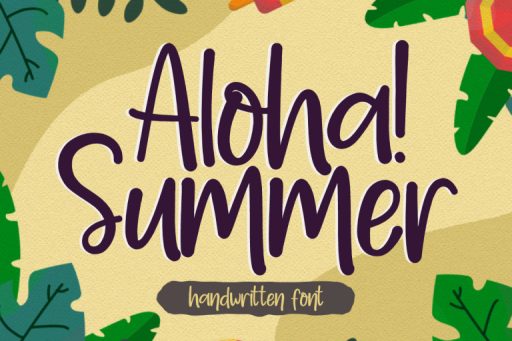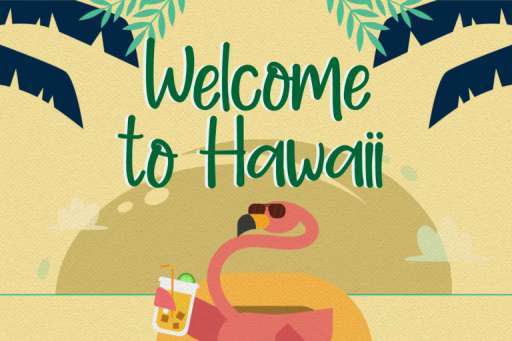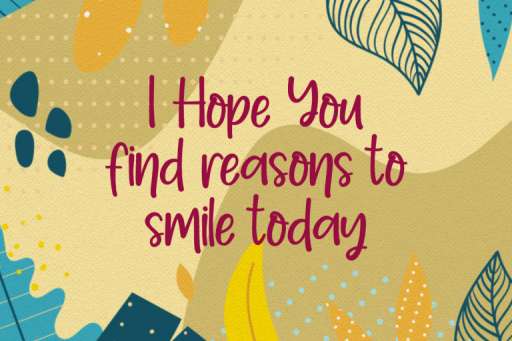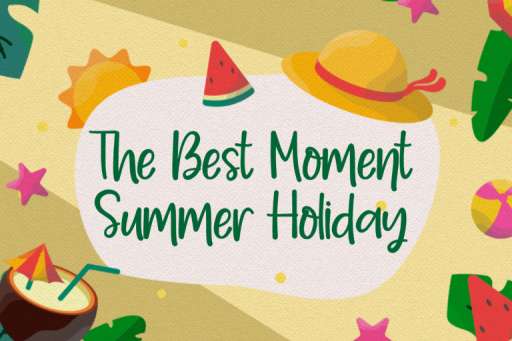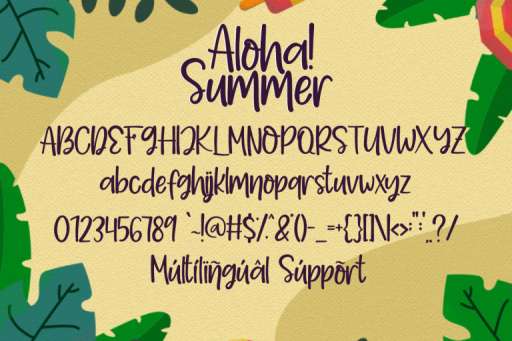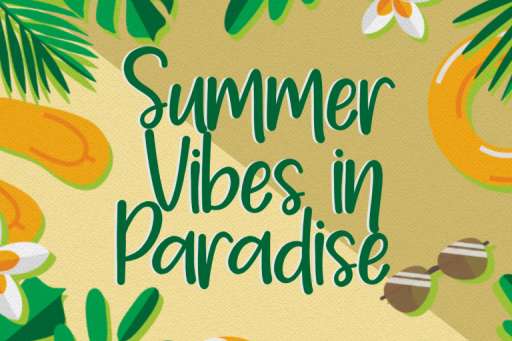
Aloha Summer Font - Handwriting Font From Jimtype Studio
Aloha Summer Font
Aloha Summer – Handwritten Font
Aloha Summer is a handwritten font and Very suitable for those of you who like handcrafted. Very suitable for design purposes that prioritize the natural side of handwriting like, quote, craft projects, party invitations, book cover, signs, etc.!
Aloha Summer Features :
• Uppercase alphabet A-Z
• Lowercase alphabet a-z
• Multilingual